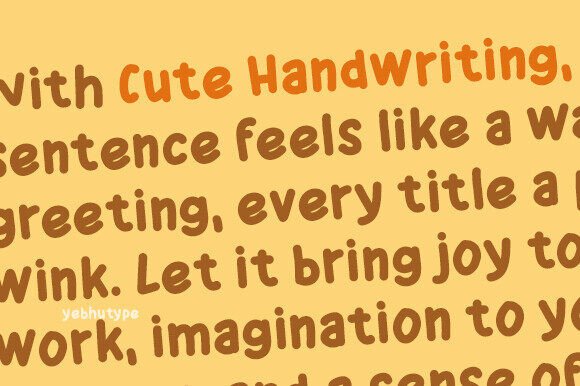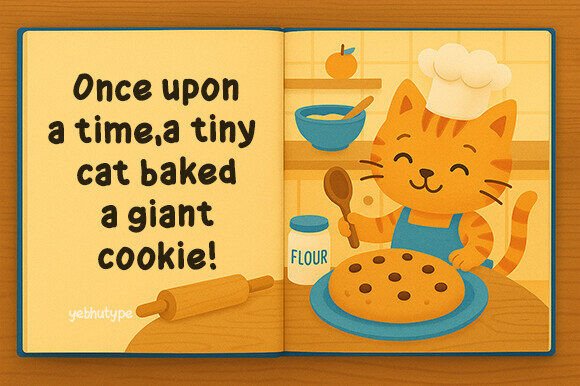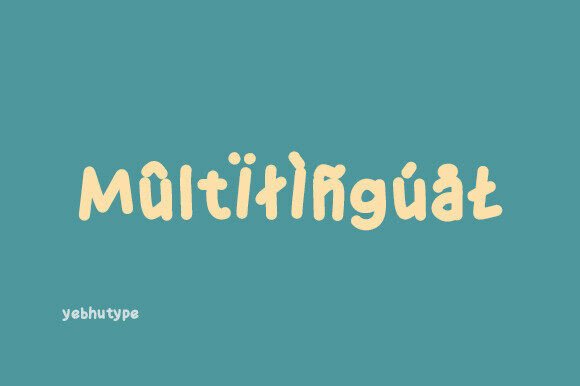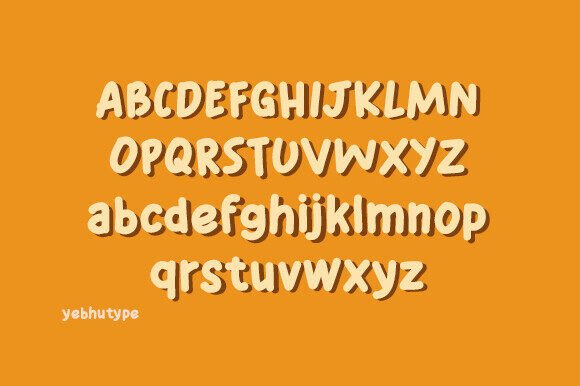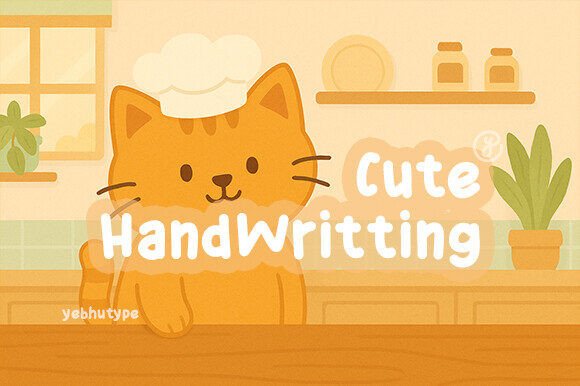
Cute Handwriting Font: Adding a Touch of Whimsy to Your Designs
Are you looking for a font that can add a dash of personality to your project? Look no further than Cute Handwriting, a bubbly handwritten typeface that radiates warmth, joy, and a playful spirit. Inspired by the charm of spontaneous sketches and cheerful scribbles, this font captures the essence of carefree creativity. In this article, we’ll dive into the world of Cute Handwriting and explore its key features, uses, and benefits.
The Magic Behind Cute Handwriting
Cute Handwriting is more than just a typeface – it’s an experience. It echoes the joy of hand-drawn doodles in notebooks, the innocence of childhood, and the comfort of something lovingly imperfect. Every glyph carries a touch of humanity, reminding us that creativity isn’t always clean – it’s real, relatable, and full of heart.
With its rounded edges, gentle curves, and lively rhythm, Cute Handwriting invites you to explore a world where fonts aren’t just tools – they’re storytellers. This font is perfect for designers and crafters who want to add a personal touch to their work, making it feel more approachable and engaging.
Key Features of Cute Handwriting
- Casual Handwriting Style: Cute Handwriting boasts a casual, laid-back style that’s reminiscent of handwritten notes and doodles.
- Rounded Edges and Gentle Curves: The font’s rounded edges and gentle curves give it a soft, friendly feel that’s perfect for designs that need a touch of warmth.
- Lively Rhythm: Cute Handwriting has a lively rhythm that makes it perfect for designs that need to convey energy and playfulness.
- Hand-Drawn Feel: The font’s hand-drawn feel makes it perfect for designs that need a personal touch, such as children’s books, greeting cards, and craft projects.
Uses for Cute Handwriting
Cute Handwriting is a versatile font that can be used in a variety of projects, including:
- Children’s Books and Educational Materials: The font’s playful and whimsical nature makes it perfect for children’s books, educational materials, and activity sheets.
- Greeting Cards and Stationery: Cute Handwriting is perfect for greeting cards, stationery, and other paper crafts that need a personal touch.
- Crafting and DIY Projects: The font’s hand-drawn feel makes it perfect for crafting and DIY projects, such as scrapbooking, journaling, and handmade cards.
- Digital Designs: Cute Handwriting can also be used in digital designs, such as social media graphics, blog posts, and website headers.
Benefits of Using Cute Handwriting
Using Cute Handwriting in your designs can have a range of benefits, including:
- Adding Personality to Your Designs: Cute Handwriting can add a dash of personality to your designs, making them feel more approachable and engaging.
- Conveying Emotion and Whimsy: The font’s playful and whimsical nature makes it perfect for designs that need to convey emotion and whimsy.
- Creating a Handmade Feel: Cute Handwriting can give your designs a handmade feel, making them perfect for crafters and DIY enthusiasts.
Tips for Using Cute Handwriting
Here are a few tips for using Cute Handwriting in your designs:
- Use it in Moderation: While Cute Handwriting is a beautiful font, it can be overwhelming if used excessively. Use it in moderation to add a touch of personality to your designs.
- Pair it with Other Fonts: Cute Handwriting can be paired with other fonts to create a unique and interesting contrast.
- Experiment with Colors and Textures: The font’s hand-drawn feel makes it perfect for experimenting with colors and textures. Try adding a pop of color or a texture to give your design a unique look.
In conclusion, Cute Handwriting is a versatile and charming font that’s perfect for designers and crafters who want to add a touch of personality to their work. With its casual handwriting style, rounded edges, and lively rhythm, Cute Handwriting is sure to bring a dash of whimsy and playfulness to any project. So why not give it a try and see how it can add a touch of magic to your designs?